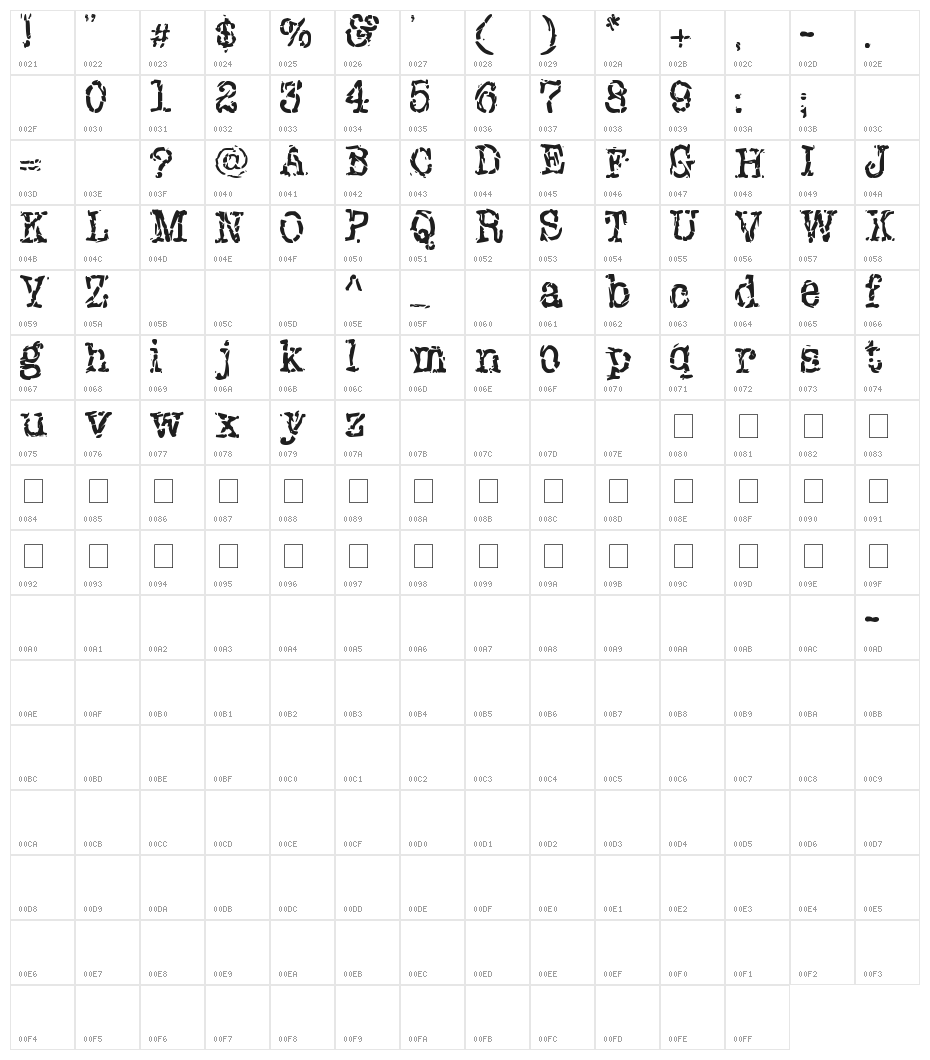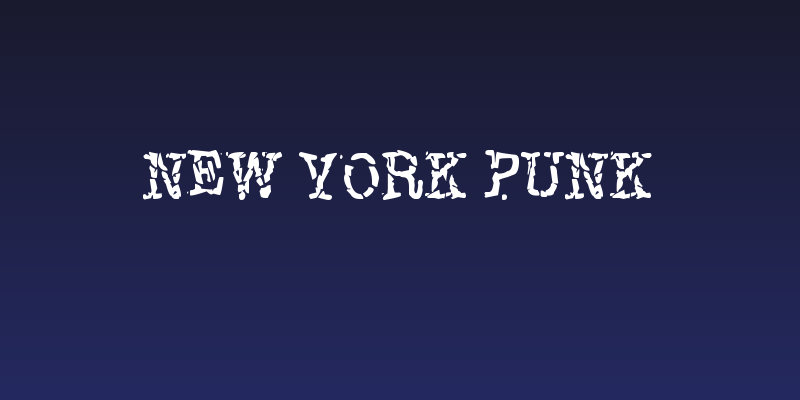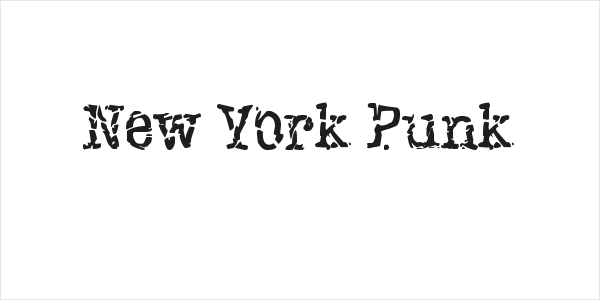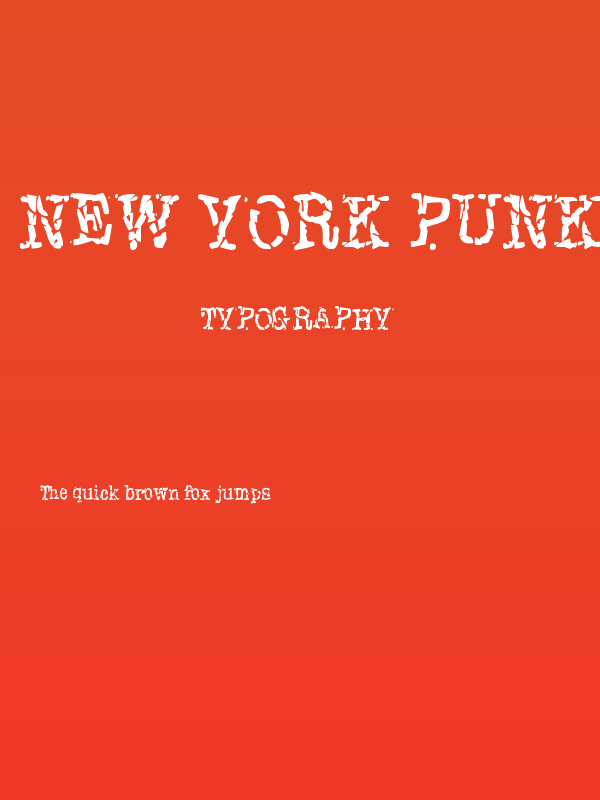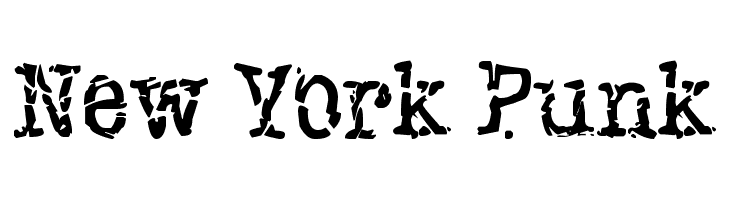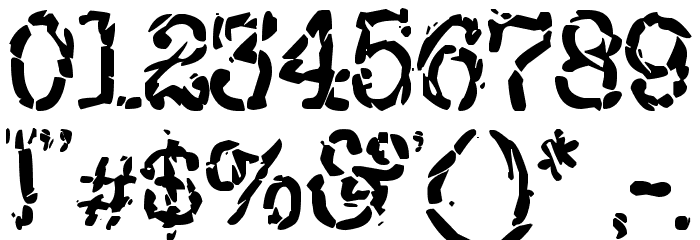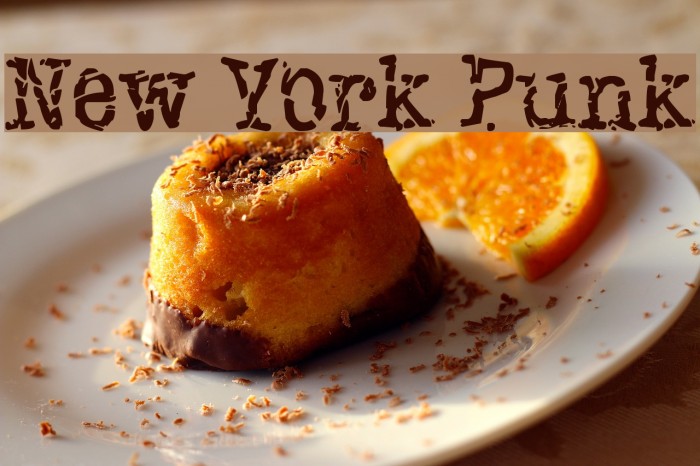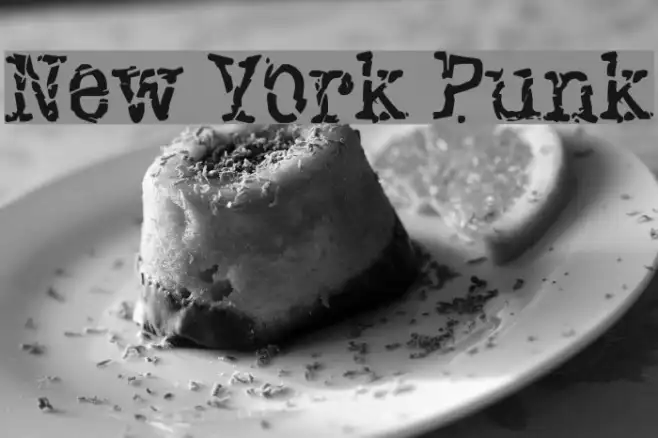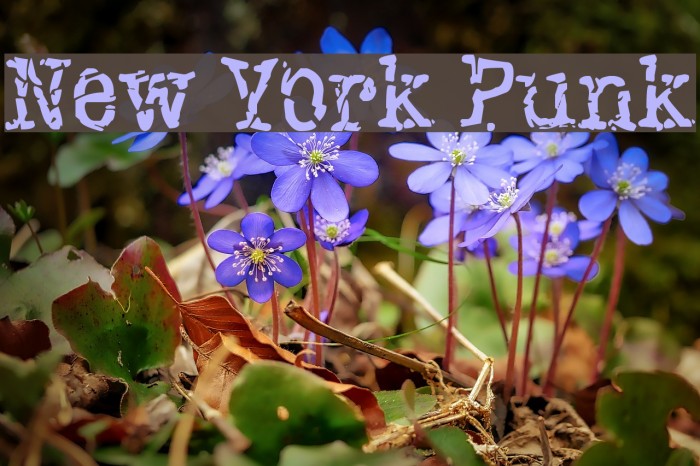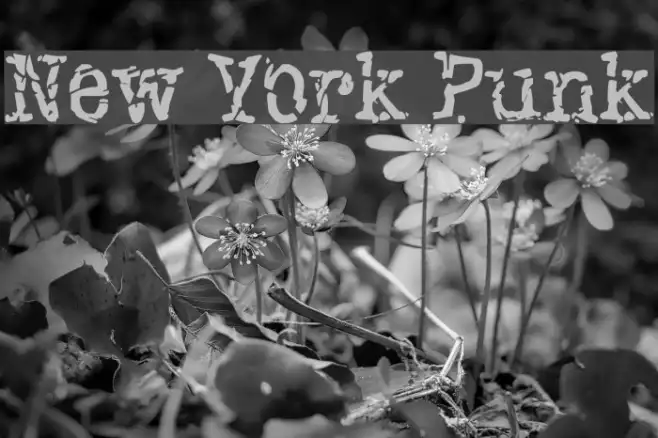
New York Punk Font
New York Punk Description
This font exudes a gritty, urban vibe with its distressed and rough-edged characters. Each letter appears as if it has been spray-painted or stenciled, giving it a rebellious and edgy look. The uppercase and lowercase letters maintain a consistent style, with irregular edges and a bold presence. Numbers and special characters follow the same aesthetic, making the font ideal for projects that require a raw and unconventional appearance. The overall design is reminiscent of street art and punk culture, making it perfect for creative and bold statements.
NEW-YORK-PUNK UPPERCASE
NEW-YORK-PUNK LOWERCASE
NEW-YORK-PUNK OTHER CHARS
| Overall Style | Urban, Punk, Edgy |
| Proposed Projects | Album covers, streetwear branding, event posters, graffiti art projects, and edgy editorial layouts. |